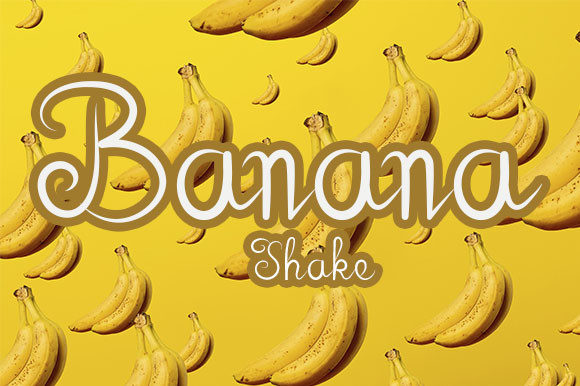
Dive into the realm of delightful typography with Banana Shake, a captivating script font that will ignite your creativity and add a touch of whimsy to your digital adventures.
Crafted by the talented designers at Almahyra Studio, Banana Shake embodies the spirit of childhood dreams and playful imaginations. Its charming strokes dance across the page with a carefree elegance, inviting you to express your unique style and leave a lasting impression.
Whether you're crafting captivating invitations, designing whimsical posters, or adding a touch of magic to your social media posts, Banana Shake will effortlessly transform your words into captivating works of art. Embrace the joy of expression and let your creativity flow like a sweet banana shake on a warm summer day.
So, what makes Banana Shake an exceptional choice for your next project?
- **Designed for Kids:** Unleash the power of imagination with Banana Shake, a font specifically tailored to engage and inspire young minds. Its playful characters will capture your child's attention and make learning and storytelling an unforgettable experience.
- **Effortless Charm:** Its enchanting strokes add an irresistible charm to any design, leaving a lasting impression on your audience.
- **Versatile Expression:** Banana Shake's versatility knows no bounds. From cheerful birthday cards to eye-catching logos, this font effortlessly adapts to your creative vision, adding a touch of whimsy and delight wherever it goes.
- **Unleash Your Creativity:** No matter your project, Banana Shake empowers you to express yourself with freedom and flair. Its playful nature invites you to break the molds and craft designs that stand out from the crowd.
- **Inspired by Joy:** Every stroke of Banana Shake is infused with the joy and wonder of childhood. Its charming characters will infuse your designs with a sense of happiness and lightheartedness.
Embrace the magic of Banana Shake and embark on a creative journey filled with endless possibilities. Its delightful handwritten style will bring a smile to your face and captivate the hearts of all who encounter it.